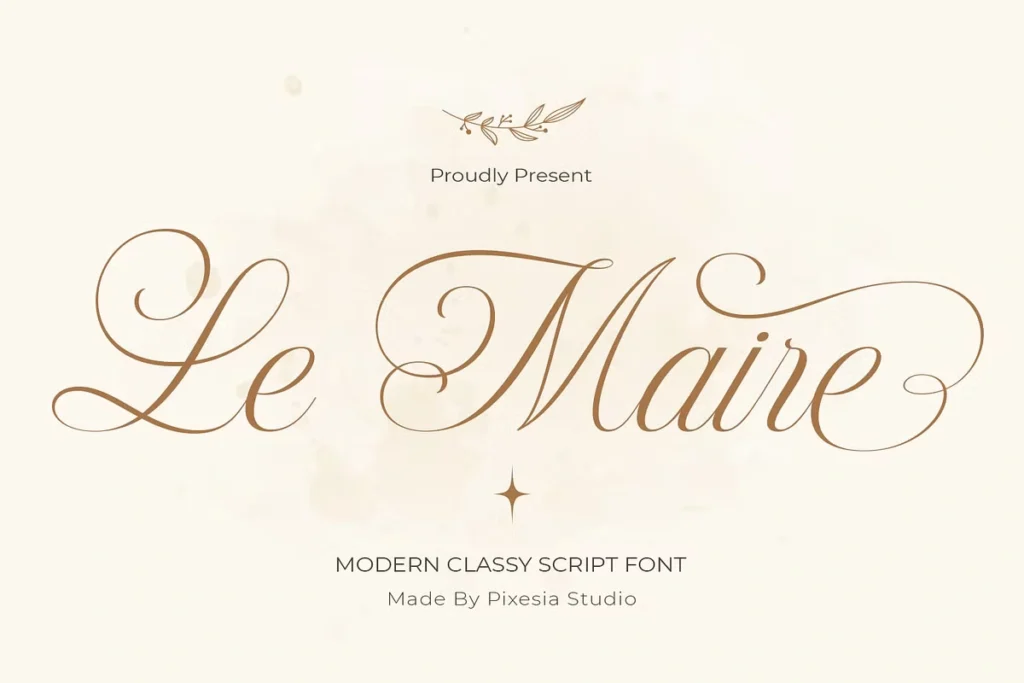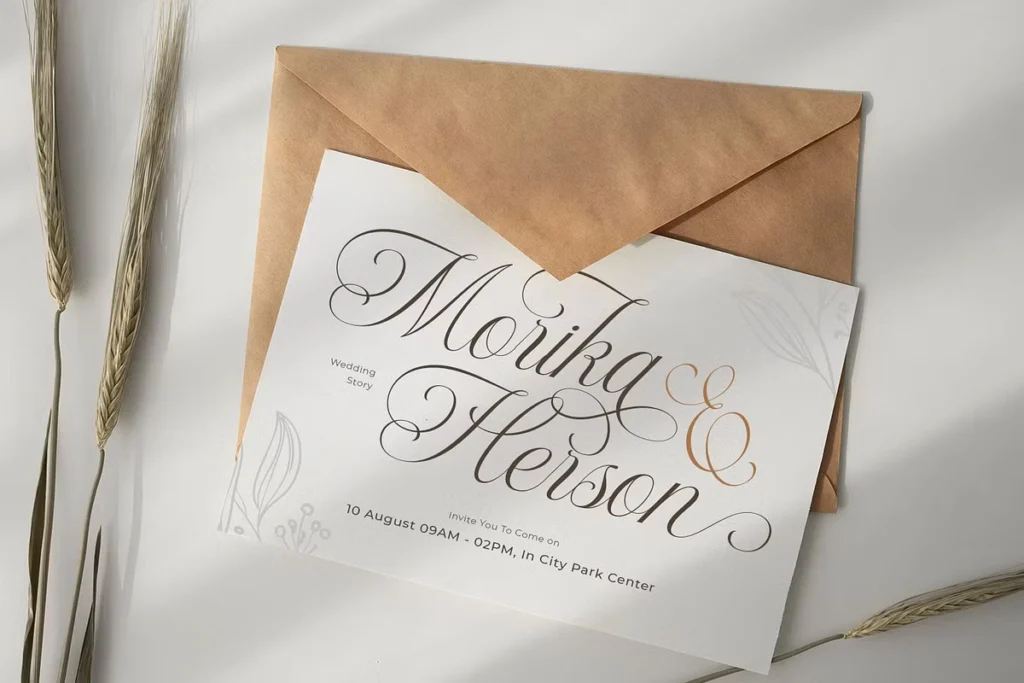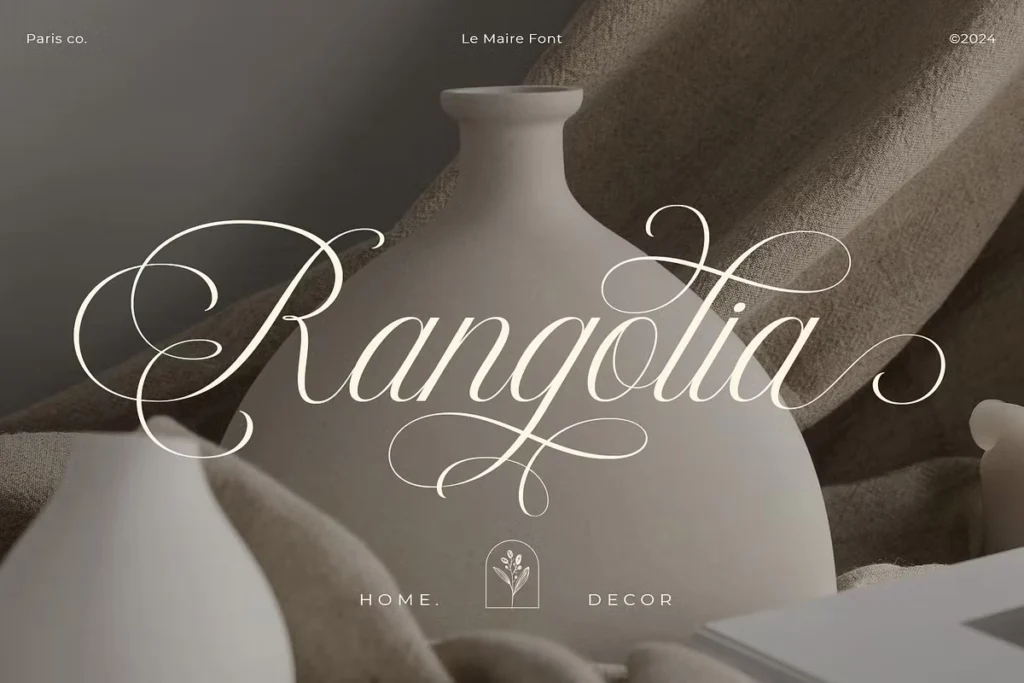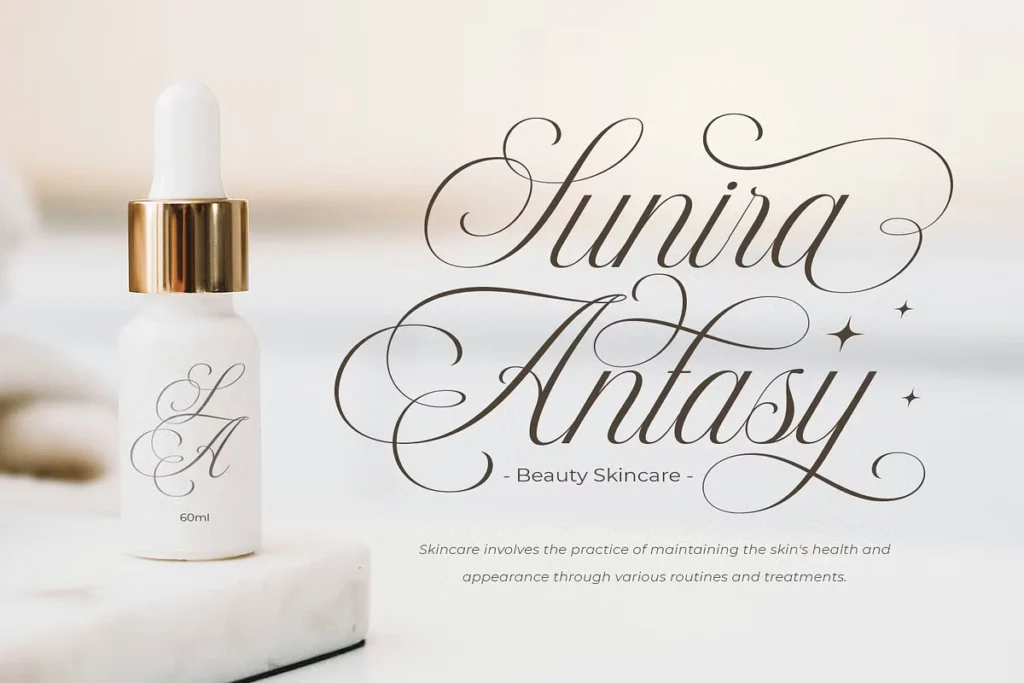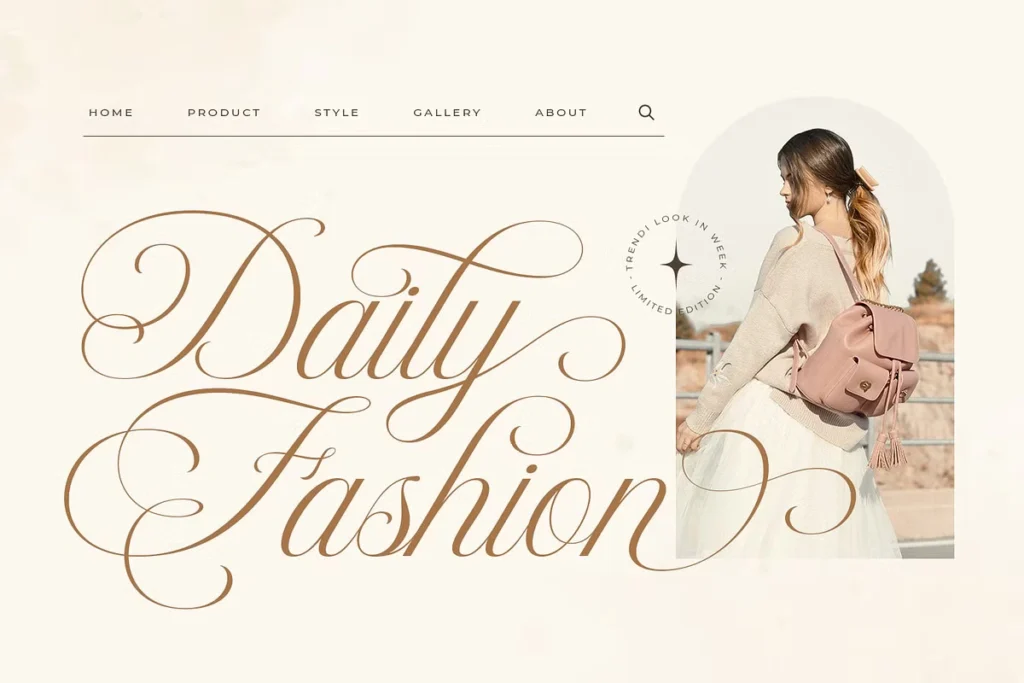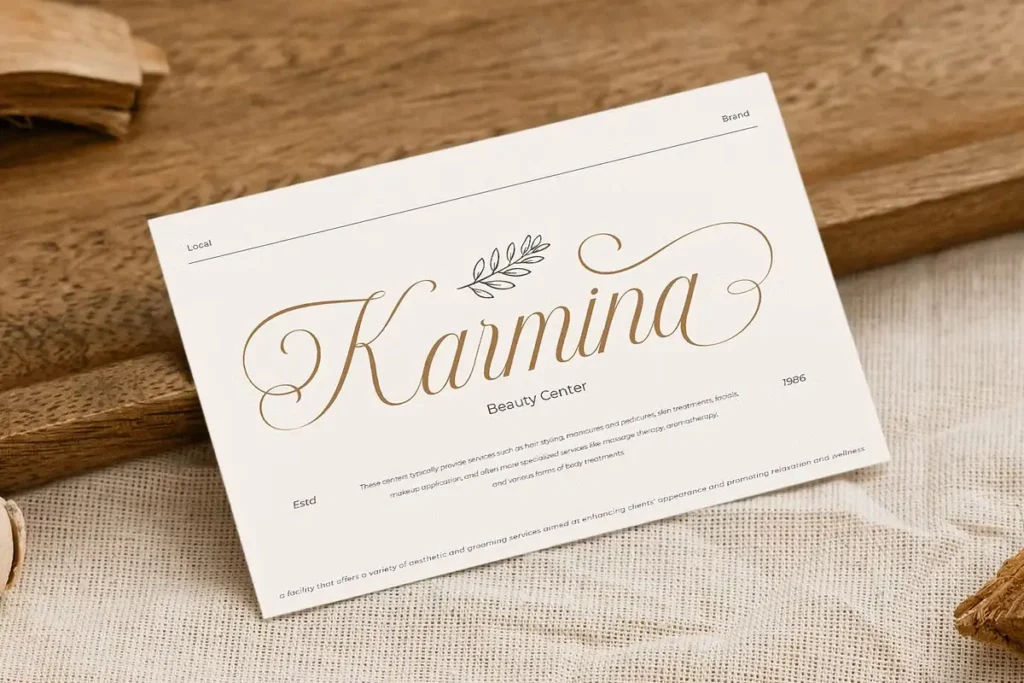
Le Maire Modern Cursive Script Font
Le Maire is a modern cursive script that blends soft calligraphic motion with a minimalist sense of elegance. It features thin, consistent strokes and soft flowing curves that bring a clean, high-end feel. Elegant, but minimal. Refined, but easy to read.
Refined Details
The font includes uppercase and lowercase letters, ligatures, and stylistic alternates that create a natural, handwritten rhythm. A slight tilt adds energy, while the even stroke weight keeps it balanced. It’s fully PUA encoded and supports over 80 languages, making it flexible for different platforms and workflows.
Best for:
- Wedding invitations
- Logos and branding
- Product packaging and labels
- Social media graphics
- T-shirt and apparel design
- Quotes and photography watermarks
What Makes It Special
Le Maire feels graceful and stylish. It pairs well with both minimalist and luxurious aesthetics, making it a versatile choice for projects that need a personal yet polished touch.
Try It in Your Style
Let Le Maire add subtle elegance and modern charm to your next design.